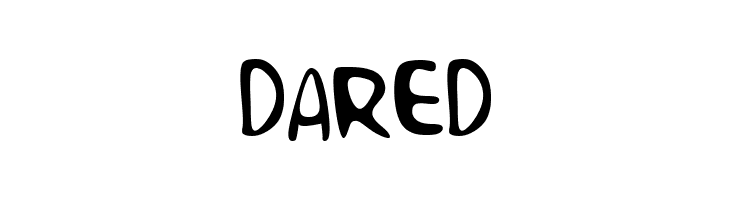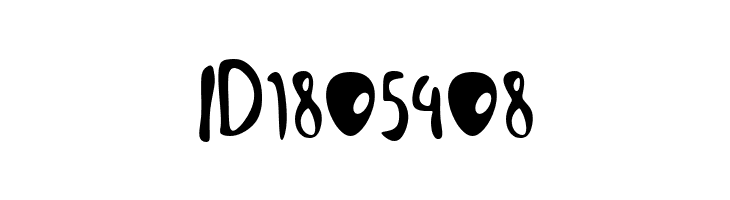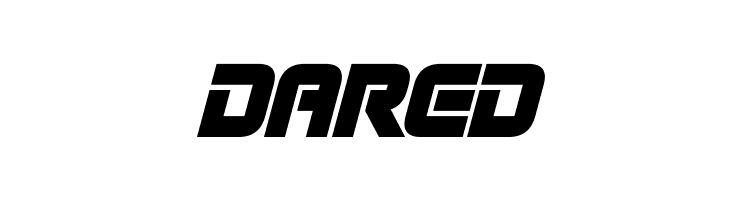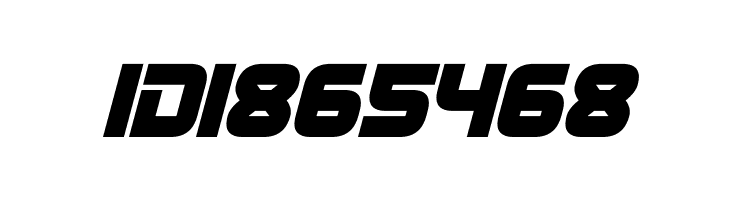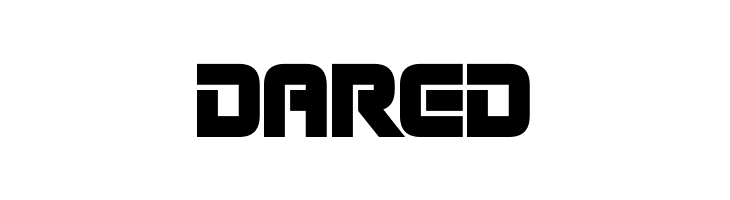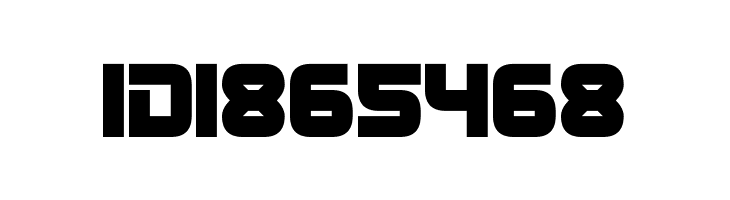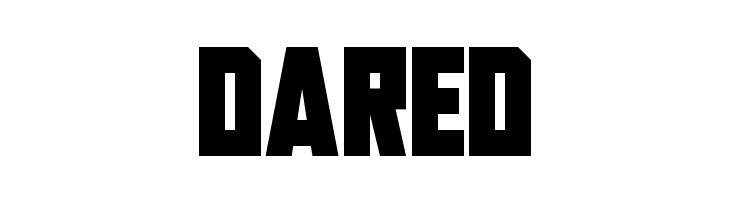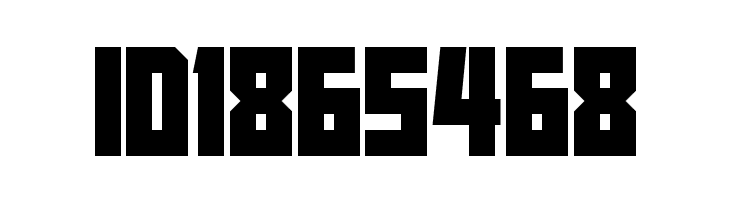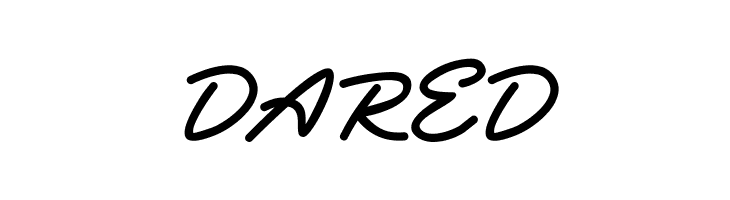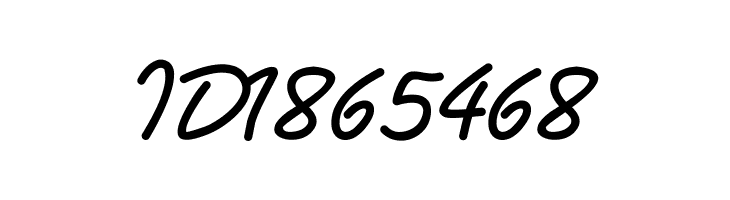
( Fonts by Darrell Flood - Personal-use only. For commercial use please contact owner. ) A bold, geometric font with a futuristic and modern design. Download 51 Downloads@WebFont
( Fonts by Darrell Flood - Personal-use only. For commercial use please contact owner. ) A bold, italic, futuristic font with angular, geometric characters. Download 57 Downloads@WebFont
( Fonts by Kurnia Setyadi ) A playful, hand-drawn font with bold, rounded characters and a whimsical style. Download 206 Downloads@WebFont
( Font by Jonathan Harris - www.tattoowoo.com ) A decorative, alien-themed font with jagged, organic forms and a mysterious aesthetic. Download 309 Downloads@WebFont
( Fonts by Darrell Flood - Personal-use only. For commercial use please contact owner. ) A bold, geometric font with a futuristic and angular design. Download 340 Downloads@WebFont
( Fonts by a Max Infeld - XEROGRAPHER FONTS - xerographer.blogspot.com . Personal-use only. For commercial use please contact owner. ) A pixelated, knitted-style font with a retro, handcrafted look. Download 103 Downloads@WebFont
( Fonts by JunCreative - Personal-use only. For commercial use please contact owner. ) A dynamic and expressive script font with fluid, cursive strokes. Download 59 Downloads@WebFont
( Fonts by Sifak Muf - Personal-use only. For commercial use please contact owner. ) A cursive, handwritten font with elegant, flowing lines. Download 34 Downloads@WebFont
( Fonts by Em Nazar - Personal-use only. For commercial use please contact owner. ) A fluid and elegant script font with smooth, connected strokes. Download 221 Downloads@WebFont
( Fonts by Daniel Zadorozny - www.iconian.com - Free for personal use ) A bold, angular, geometric font with a modern edge. Download 118 Downloads@WebFont